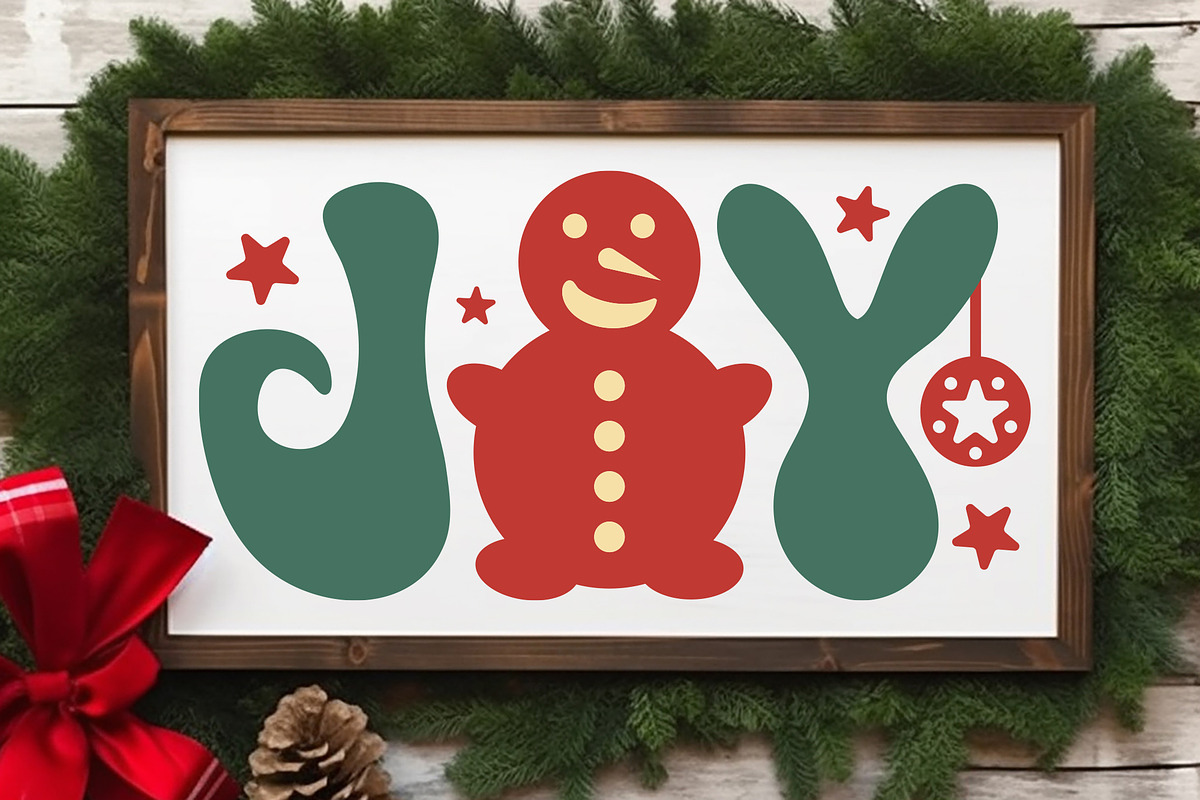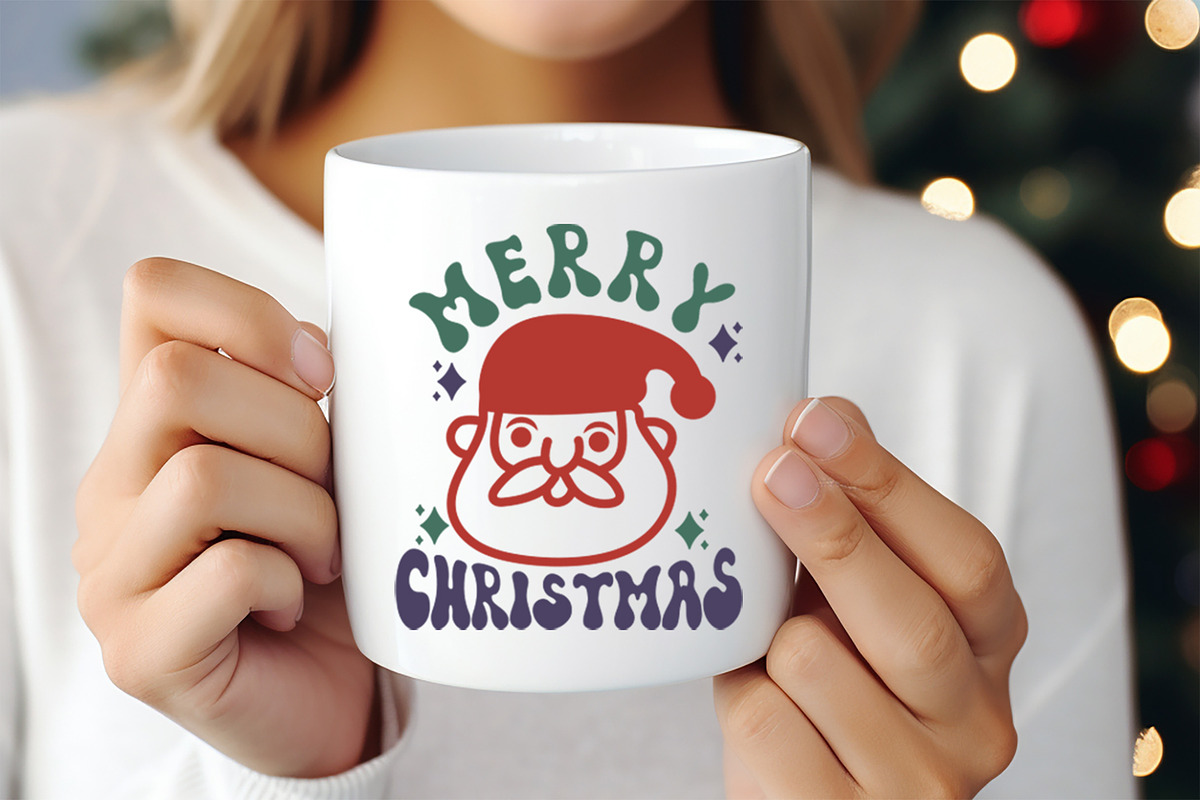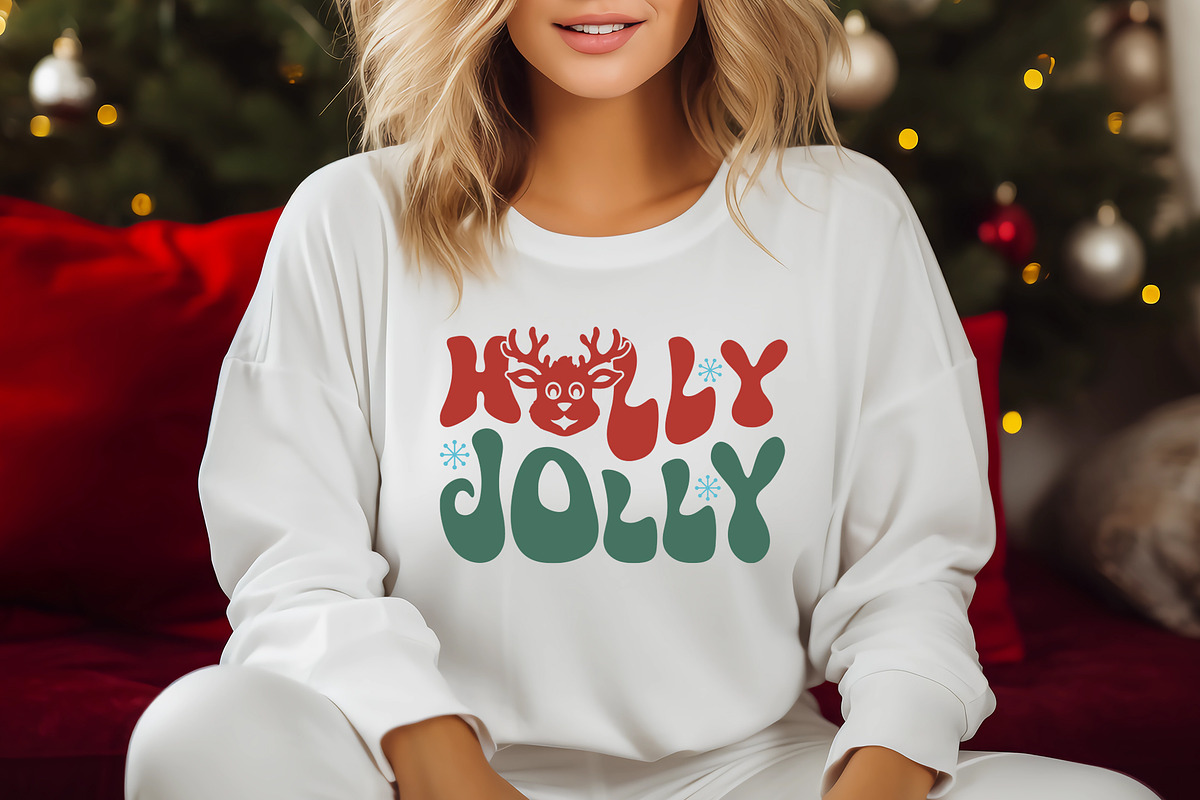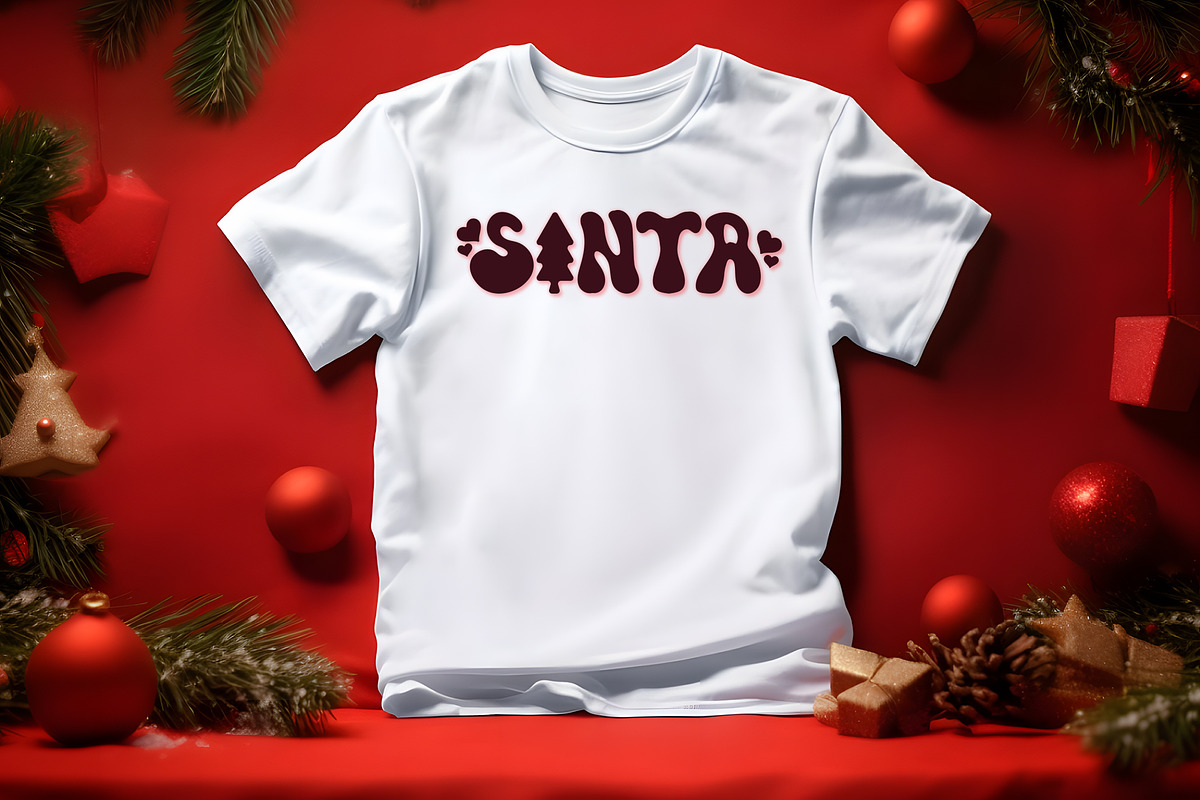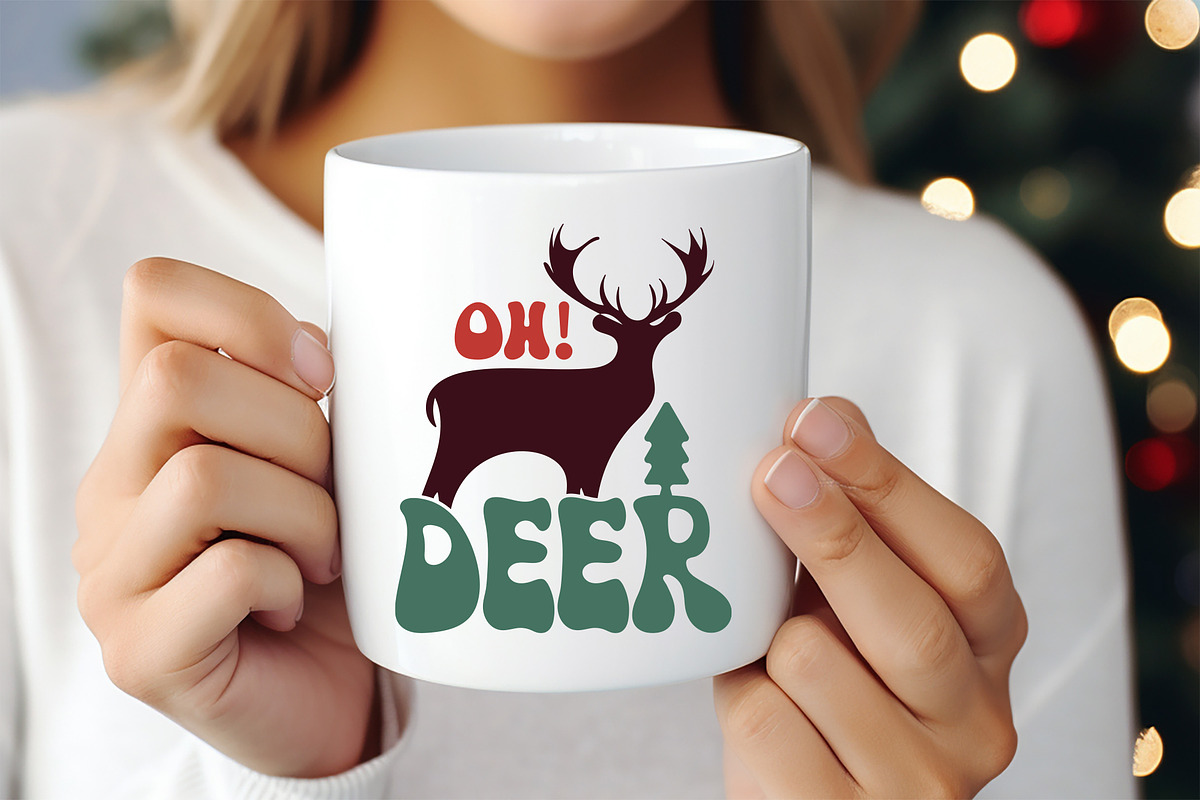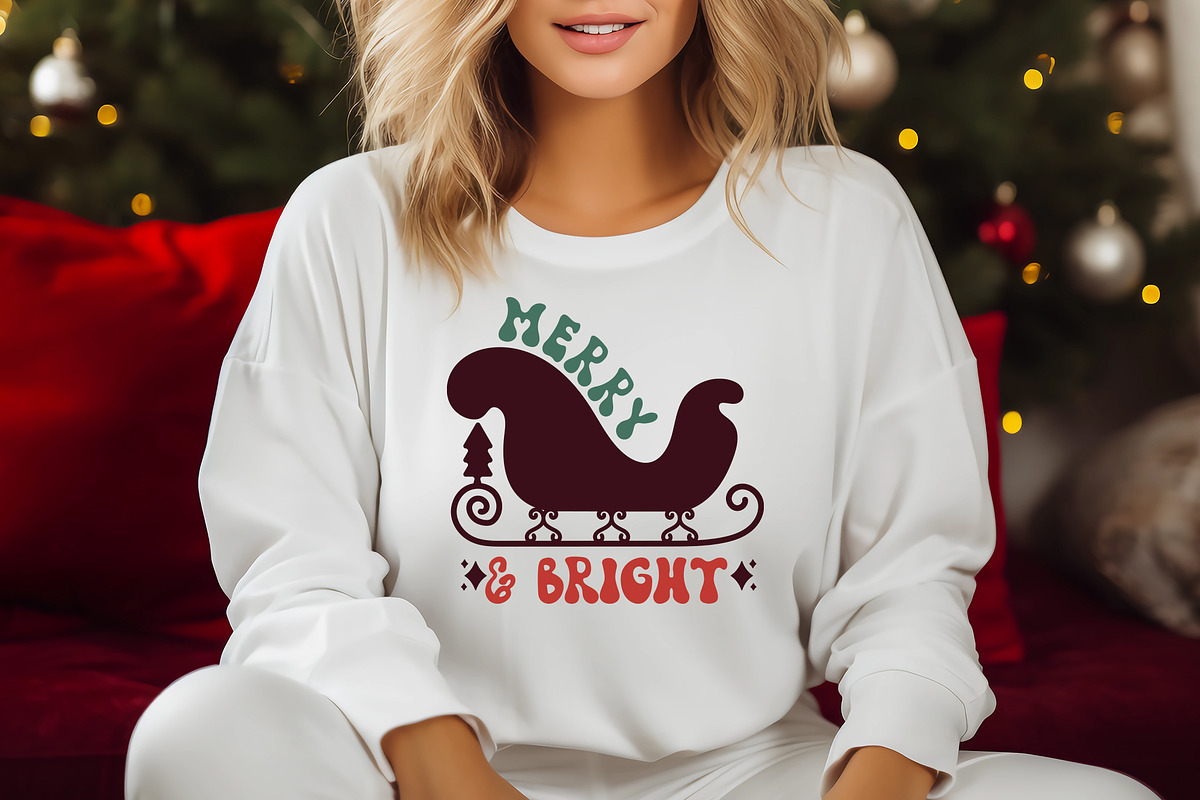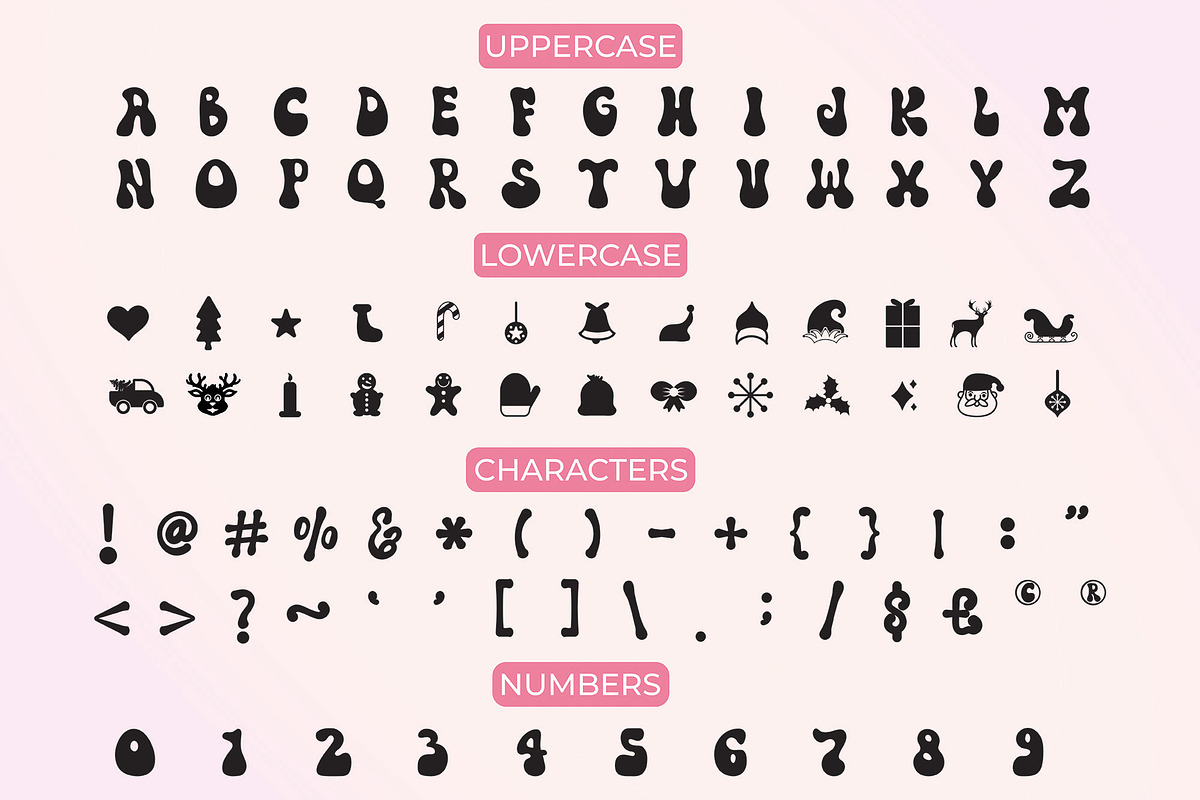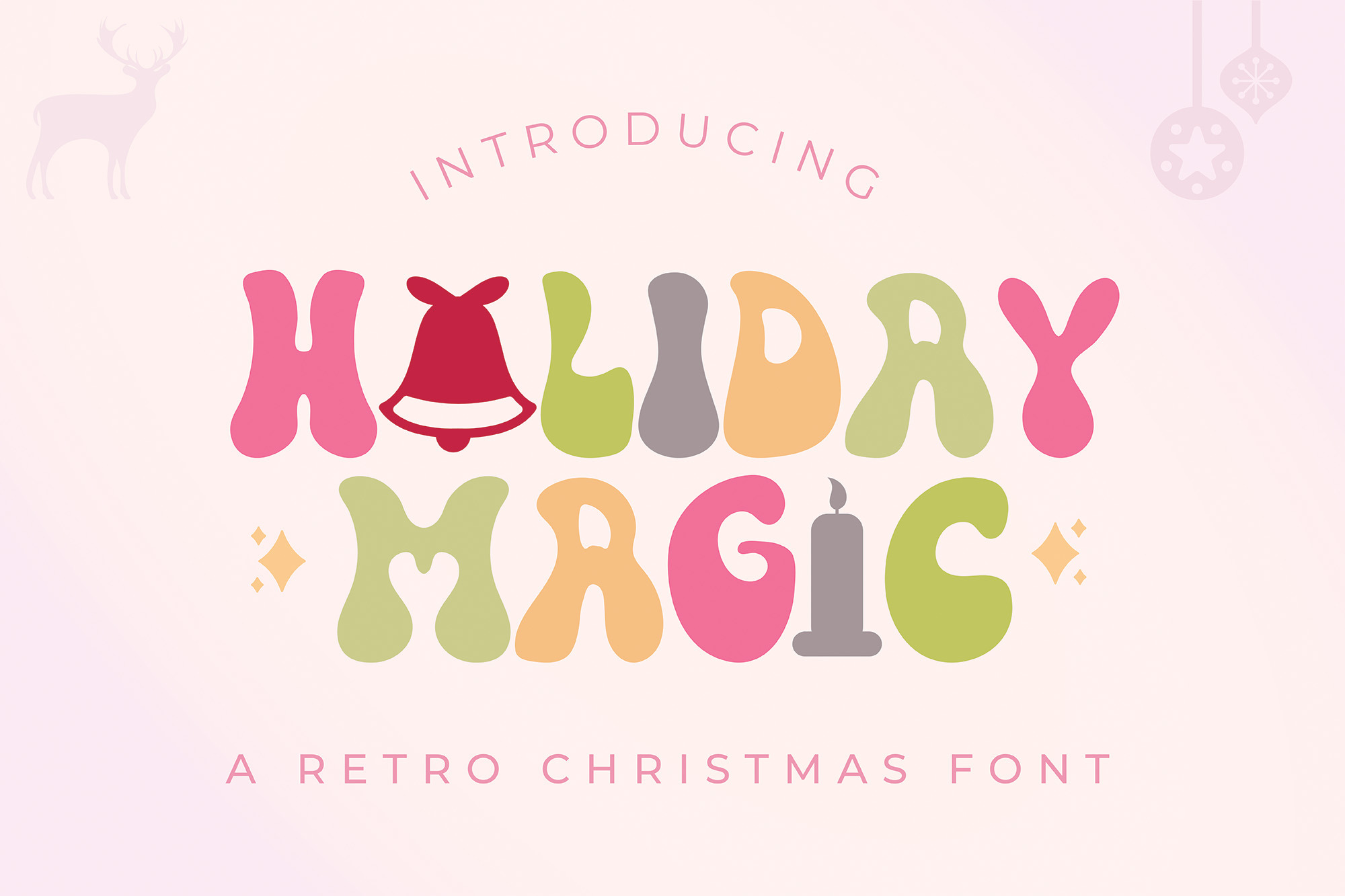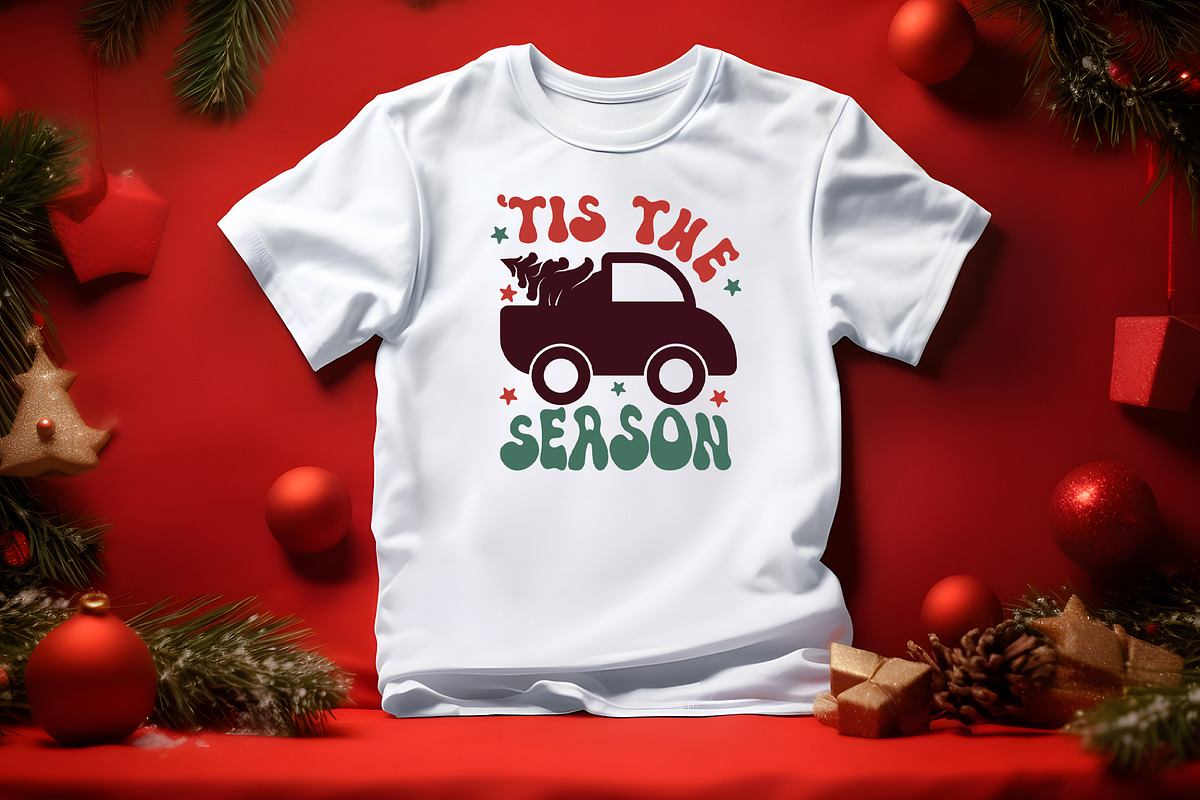
Holiday Magic - Retro Christmas Font
Holiday Magic is a playful, fun, and festive retro Christmas display font. This cute font is perfect for crafting, gifting, and decorating any Christmas project. Also suitable for greeting cards, retro designs, stationery, magazines, t-shirts, mugs, sweaters, invitations, decorations, banners, and much more.